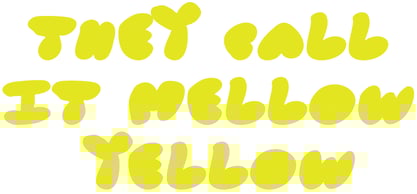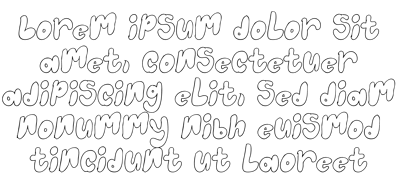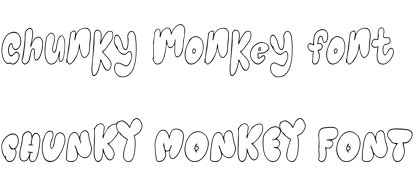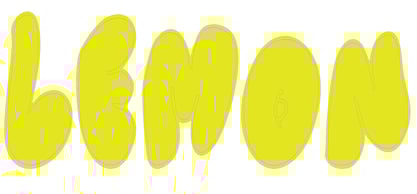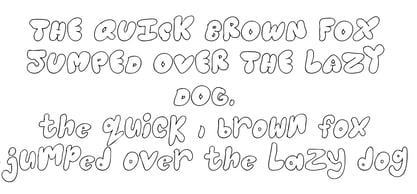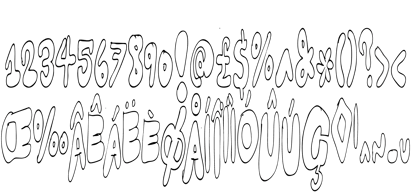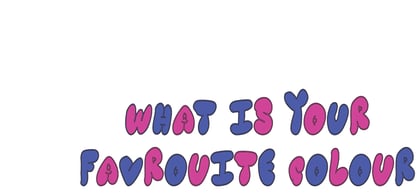
Fillthefridge
by Jointype
The Fillthefridge Font Family was designed by Jeremy Gill-Praba and published by Jointype. Fillthefridge contains 1 styles. More about this family
This font is based on all the little doodles we used to do on are sketch books and note books inbetween,before and after class at school ,college and work."Fill the Fridge" is a playful, whimsical font that draws inspiration from bold, rounded shapes and quirky letterforms. It’s characterized by a friendly, hand-drawn style that gives off a casual and fun vibe, reminiscent of doodles or graffiti. The font's exaggerated curves and slightly irregular shapes give it a sense of character and energy, making it perfect for designs that aim to evoke a sense of warmth, joy, or creativity.
Often used in playful branding, food-related logos, children’s products, or any design that needs a touch of lightheartedness, "Fill the Fridge" is perfect for projects that require a casual, approachable, and slightly humorous tone. Its bold, easy-to-read structure ensures it stands out, even when used in large text or eye-catching designs.
Designers: Jeremy Gill-Praba
Foundry: Jointype